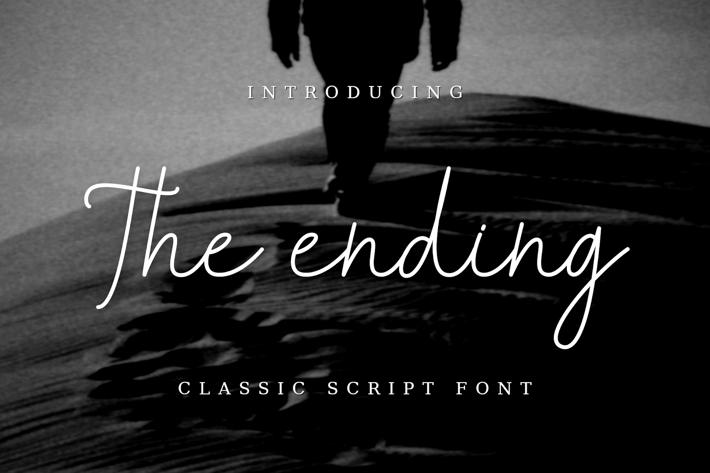
The Ending - Script Font
The Ending is a beautiful handwriting script font that brings an authentic handwritten feel to your designs. With its flowing strokes and natural rhythm, this font is perfect for wedding stationery, personal branding, social media quotes, and elegant packaging.
Its charming curves and organic look give a human touch to modern visual identities.
Key Features:
- Handcrafted script with smooth flow
- Ideal for quotes, weddings, and packaging
- Natural handwriting style
- Stylish and feminine personality
- Uppercase & lowercase letters
- Numbers and punctuation
- Multilingual support